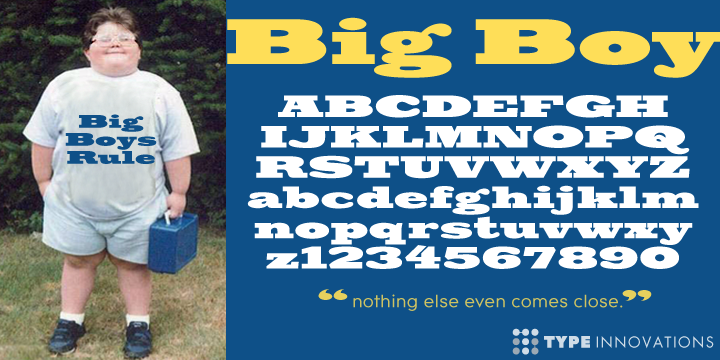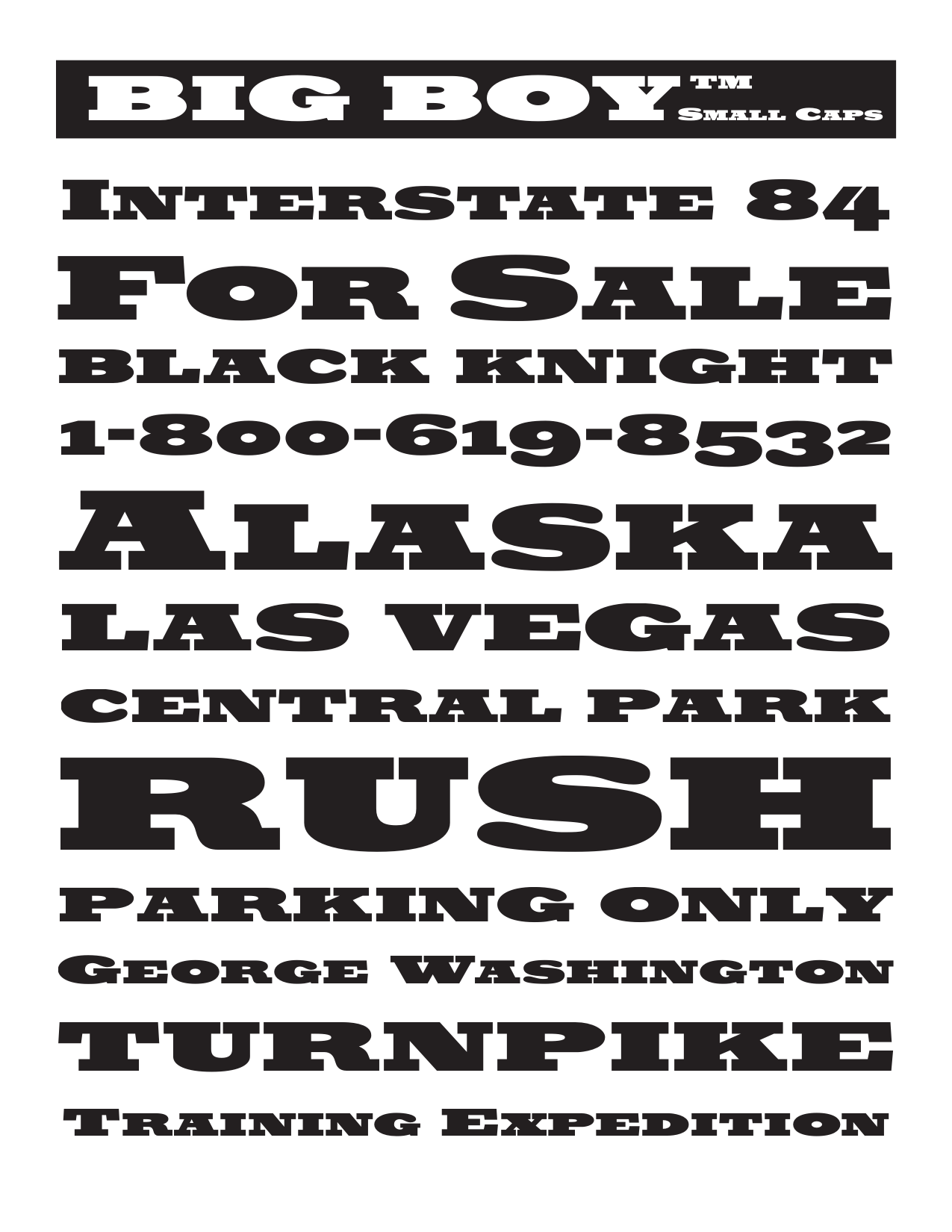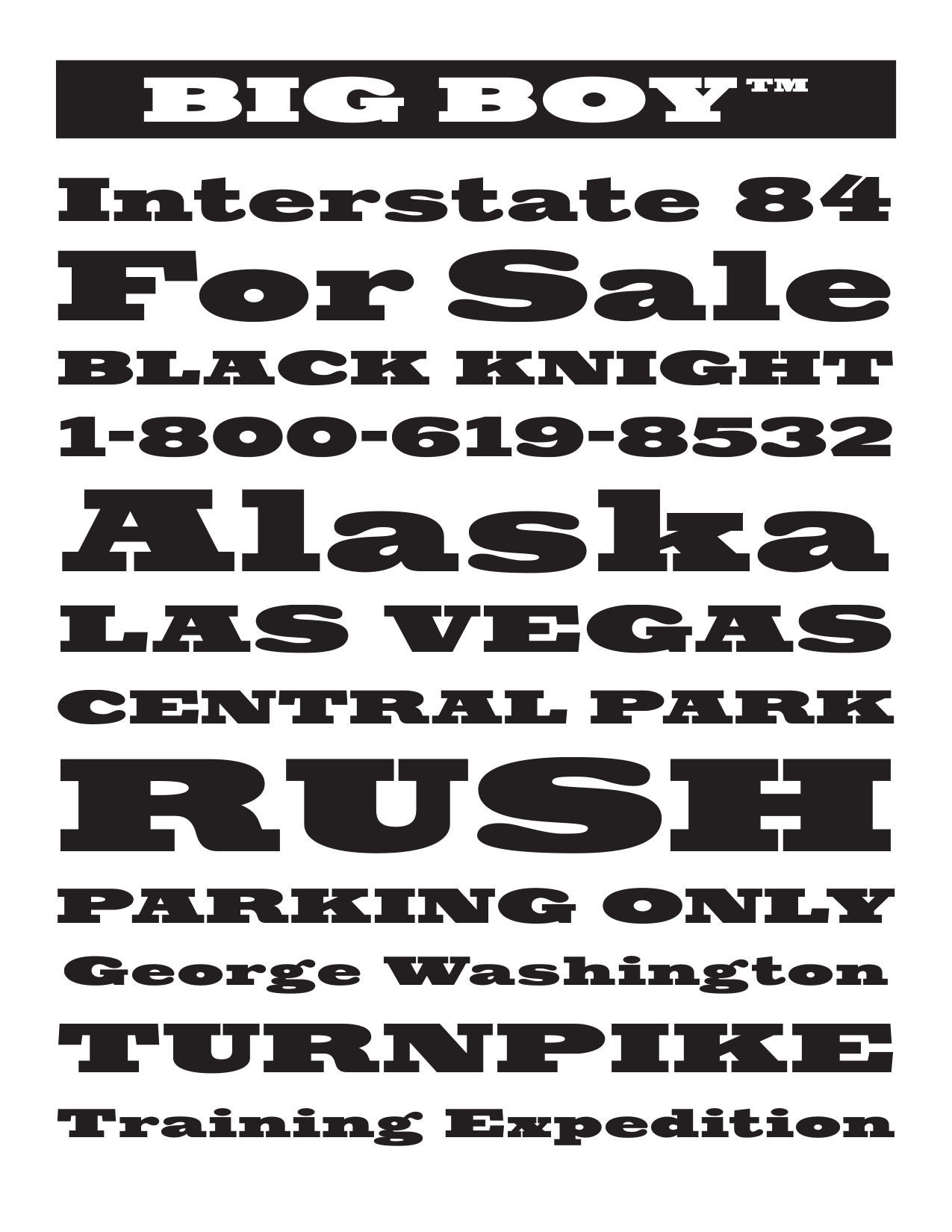
Big Boy
RegularI always wanted to create the world's biggest and heaviest font. I admit that I was visually inspired
by contenders like 'Akimoto', 'Champ Ultra', 'Blackoak' and 'Bloque'. However, I not only wanted a real heavyweight, but a really good looking and readable font as well.
Look out—BIG BOY is here! This powerhouse can get the job done. Try it out and get the attention you deserve.